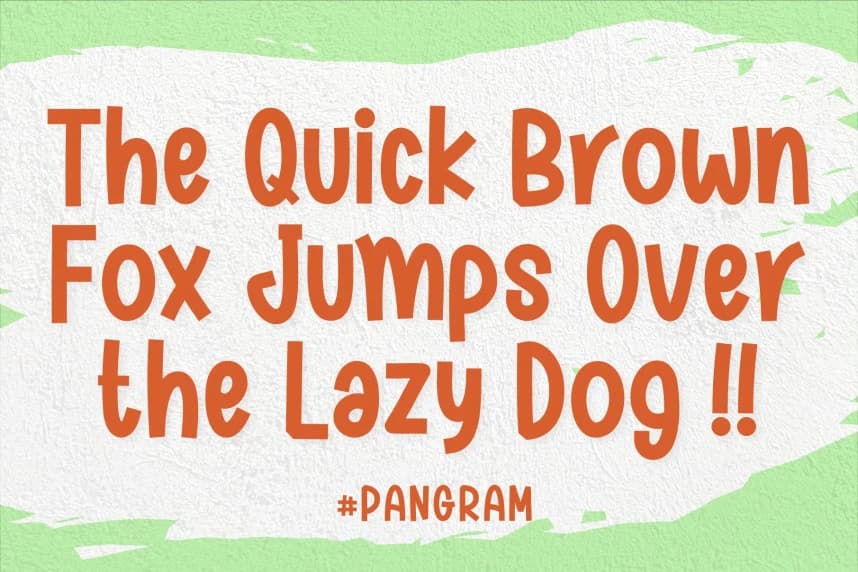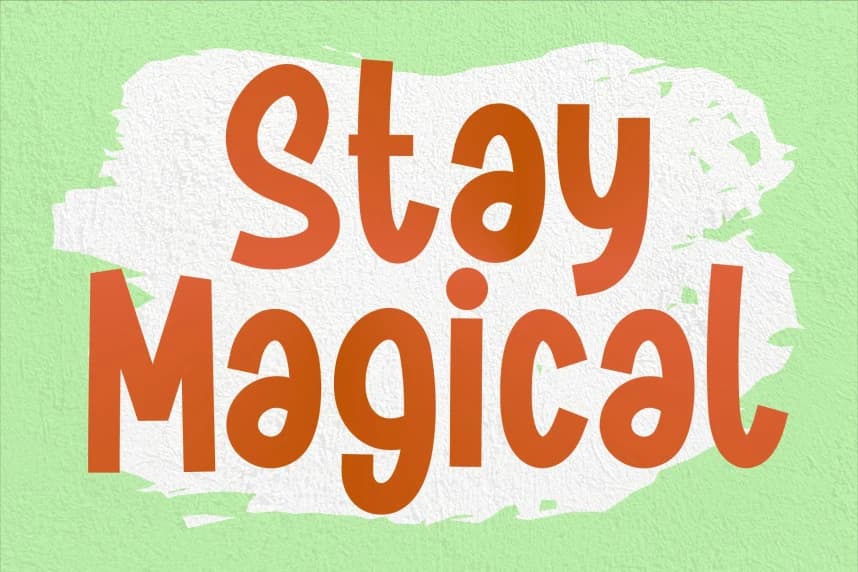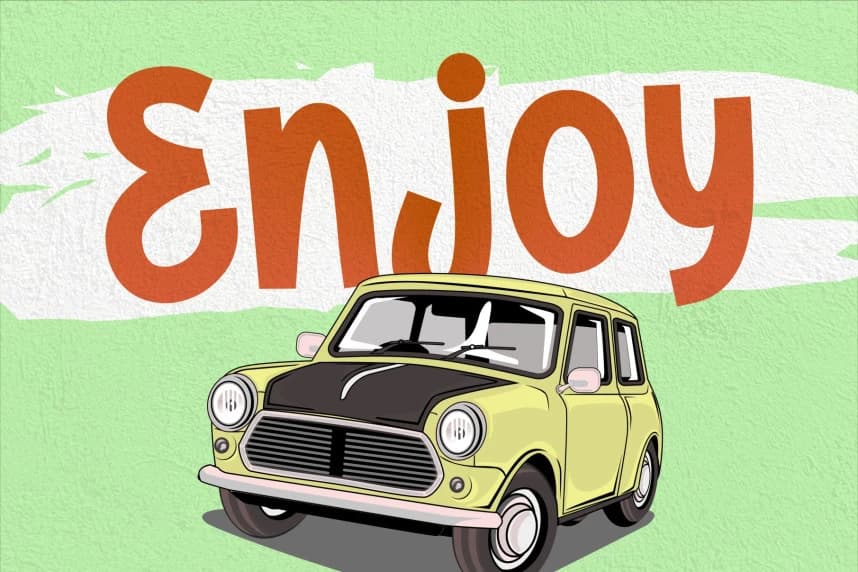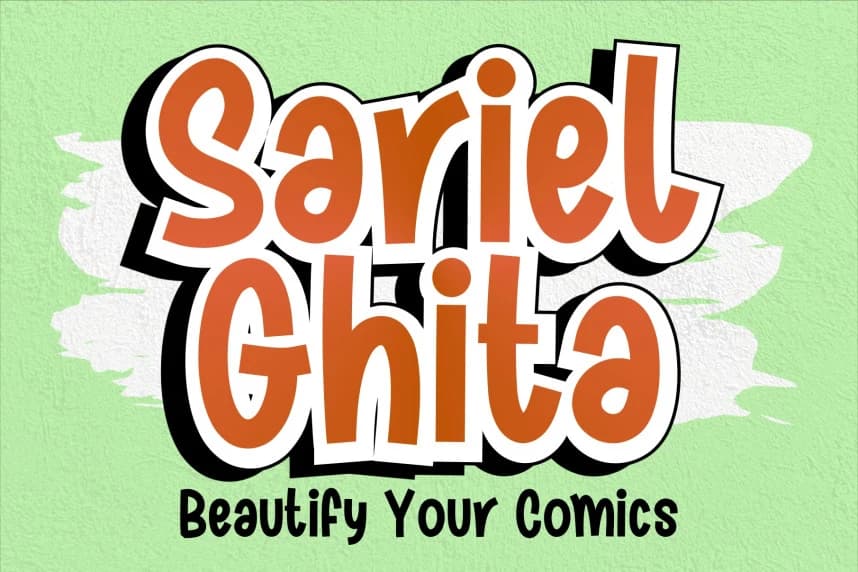
Sariel Ghita Font
Sariel Ghita Font is a cute display font perfect for posters, logos, magazines, book covers, banners, and many more! Get this amazing font, and use it to create lovely designs. It can easily be matched to an incredibly large set of projects, so add it to your creative ideas and notice how it makes them stand out!